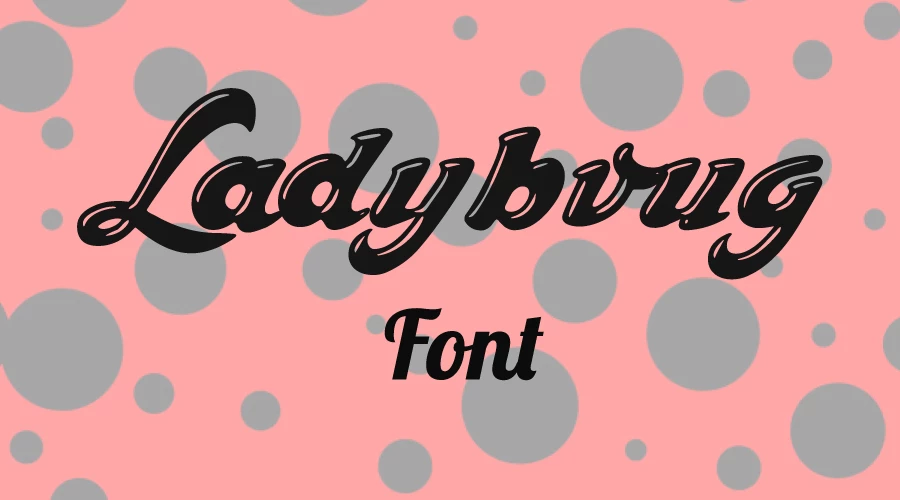
Ladybug Typeface is a popular and adorable font these days. The Miraculous Ladybug is a superhero computer-generated imagery (CGI) cartoon series that debuted in France on October 19, 2015. It has earned a number of honors for its plot, visual effects, and fan base, including The Tell-Tale TV Awards, The UK Licensing Awards, Brazilian Toy Magazine Awards, and others.
Numerous designers have used this font to create beautiful titles and logos for t-shirt printing, kids’ bags, and other uses. You can also use this typeface for a variety of fashion-related uses, such as printing cosmetics, ladies’ bags, and shopping bags. We hope this beautiful typeface will assist you in creating a high-quality design.
StyleScript, Calligraphy